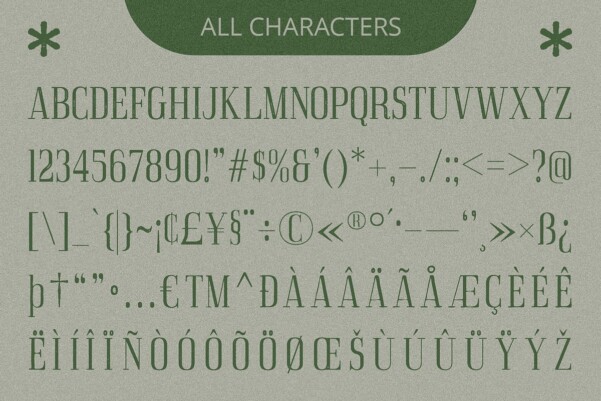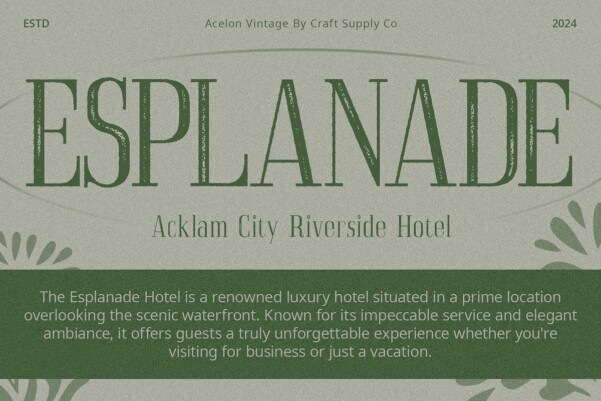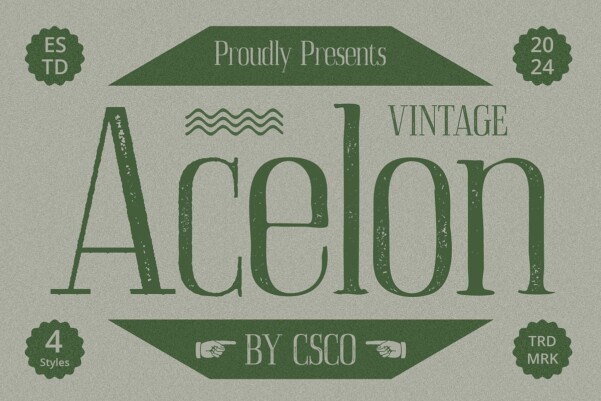
Acelon Vintage Font
Acelon Vintage Font: Retro Elegance with a Contemporary Twist. Serif Condensed Design Acelon Vintage boasts a striking serif condensed design, characterized by its tall and narrow letterforms. This unique structure lends it a sense of sophistication and modernity.
High Contrast and Flat Serifs With its high contrast and flat serifs, This font strikes the perfect balance between traditional elegance and contemporary flair. The sharp contrast adds visual interest, while the flat serifs offer a clean and refined aesthetic.
Vintage Stamp, Drawn, and Rough Effects The font is enhanced with vintage stamp, drawn, and rough effects, giving it a nostalgic and handmade feel. These effects add texture and character, evoking a sense of authenticity and craftsmanship.
Versatile Application Despite its vintage-inspired design, This font is incredibly versatile in its application. Whether used for branding, editorial design, posters, or signage, it brings a touch of retro elegance to any project.
Timeless Charm with a Modern Edge This font seamlessly blends retro charm with contemporary sophistication, making it an ideal choice for designers looking to add character and style to their projects. With its unique design and versatile application, Acelon Vintage offers endless possibilities for creative expression.